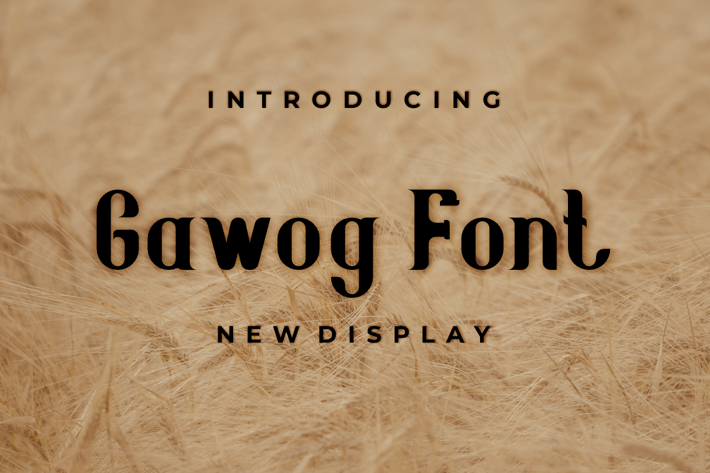
Gawog Font
Introducing our new product Gawog Font - Modern Font
Gawog Font - Modern Font is a bold and authentic display font. The font is suitable for any branding project like logo, t-shirt printing, esport, and many more. outstanding in a wide range of contexts.